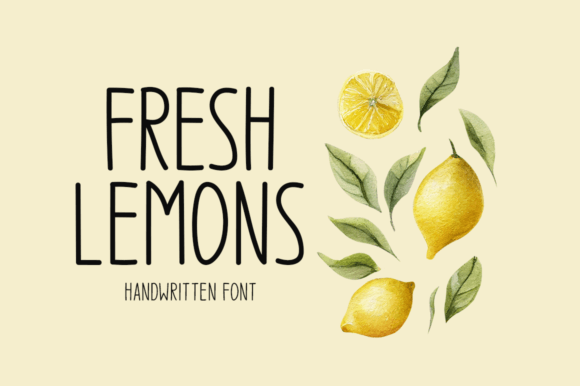
Introducing Fresh Lemons Font: A Handcrafted Masterpiece to Elevate Your Designs
Journey into the realm of exquisite typography with Fresh Lemons Font, a display font that captivates the senses with its effortless elegance and playful charm. Inspired by the refreshing burst of citrus, this font exudes a vibrant energy, adding a touch of zest to any project it graces.
Crafted with meticulous attention to detail by the talented Seemly Fonts, Fresh Lemons Font boasts a whimsical yet sophisticated style that effortlessly elevates your designs. Its organic, hand-drawn strokes evoke a sense of authenticity, while its carefully balanced letterforms ensure optimal readability and impact.
With Fresh Lemons Font, you'll discover a versatile font that seamlessly adapts to a myriad of creative endeavors. Let its graceful curves and lively personality shine through in logos, branding materials, social media posts, invitations, greeting cards, and more. Whether you're a seasoned designer or a creative enthusiast, this font is your passport to captivating designs that leave a lasting impression.
Embark on an artistic odyssey with Fresh Lemons Font and unlock a world of creative possibilities. Experience the sheer delight of transforming ordinary words into extraordinary expressions, crafting designs that resonate with your audience and ignite their imagination.